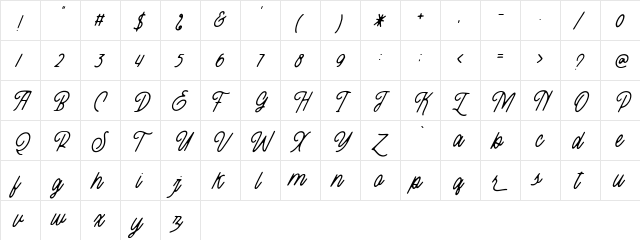
Threesixty Regular
| Foundry | megi satyo widodo |
| Designer | megi satyo widodo |
Design Context for Threesixty Typeface
Threesixty takes a measured approach to typography — its balanced proportions and neutral character make it a reliable workhorse for both digital and print work.
Pro Tip: Use Threesixty in both headline and body roles to test its range before committing to a single application.